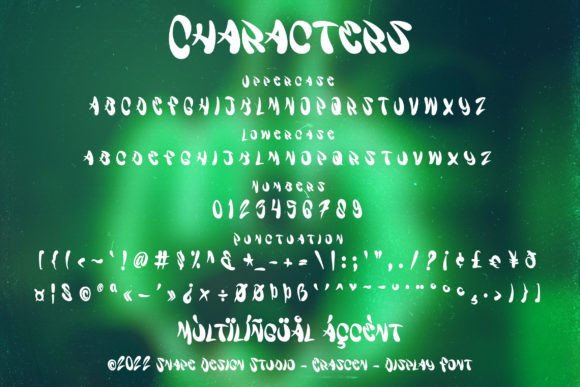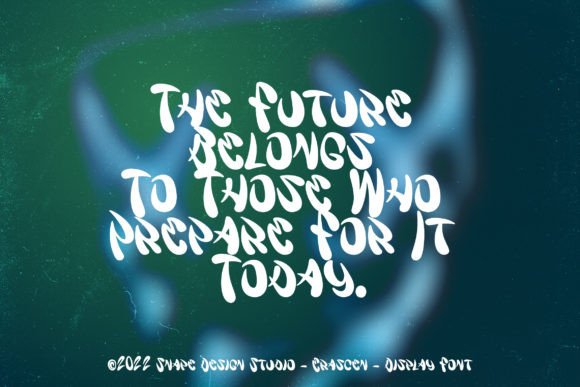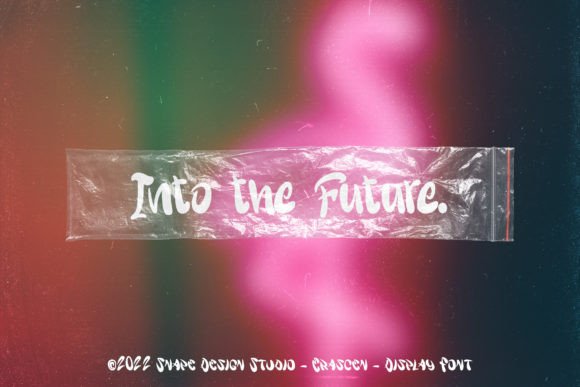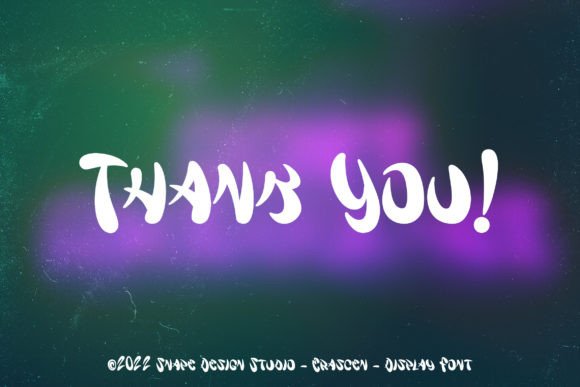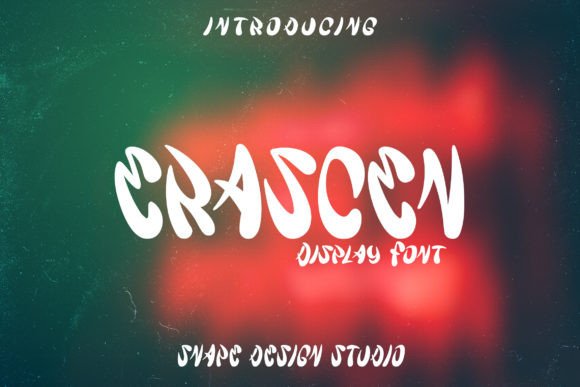
Erascen Font: The Fun and Quirky Display Font You Need
Are you tired of using the same old fonts in your designs? Do you want to add a touch of personality and whimsy to your creations? Look no further than Erascen Font, a fun and quirky display font that’s sure to elevate your font library.
What is Erascen Font?
Erascen Font is a unique and eye-catching display font that’s perfect for designers and crafters looking to add some excitement to their work. With its playful and quirky style, Erascen Font is sure to stand out from the crowd and make your designs pop.
Why You’ll Love Erascen Font
So, what makes Erascen Font so special? Here are just a few reasons why you’ll love adding this font to your library:
- Versatility: No matter the topic or theme, Erascen Font is versatile enough to work with any design. Whether you’re creating a fun and playful project or something more serious and professional, this font will adapt to your needs.
- Uniqueness: Erascen Font has a one-of-a-kind style that’s sure to set your designs apart from the rest. Its quirky and fun design will add a touch of personality to any project.
Erascen Font is a must-have for designers and crafters looking to add some excitement to their work. Whether you’re creating:
- Social media graphics: Use Erascen Font to create eye-catching social media graphics that will grab the attention of your followers.
- Planners and journals: Add a touch of personality to your planners and journals with Erascen Font’s fun and quirky style.
- Logos and branding: Use Erascen Font to create unique and memorable logos and branding materials that will set your business apart.
- Party decorations: Create fun and festive party decorations with Erascen Font’s playful style.
Tips for Using Erascen Font
Here are a few tips for getting the most out of Erascen Font:
- Experiment with colors: Erascen Font looks great in a variety of colors, so don’t be afraid to experiment and find the perfect hue for your design.
- Mix and match: Combine Erascen Font with other fonts to create a unique and interesting look.
- Play with sizes: Use Erascen Font in a variety of sizes to add visual interest to your design.